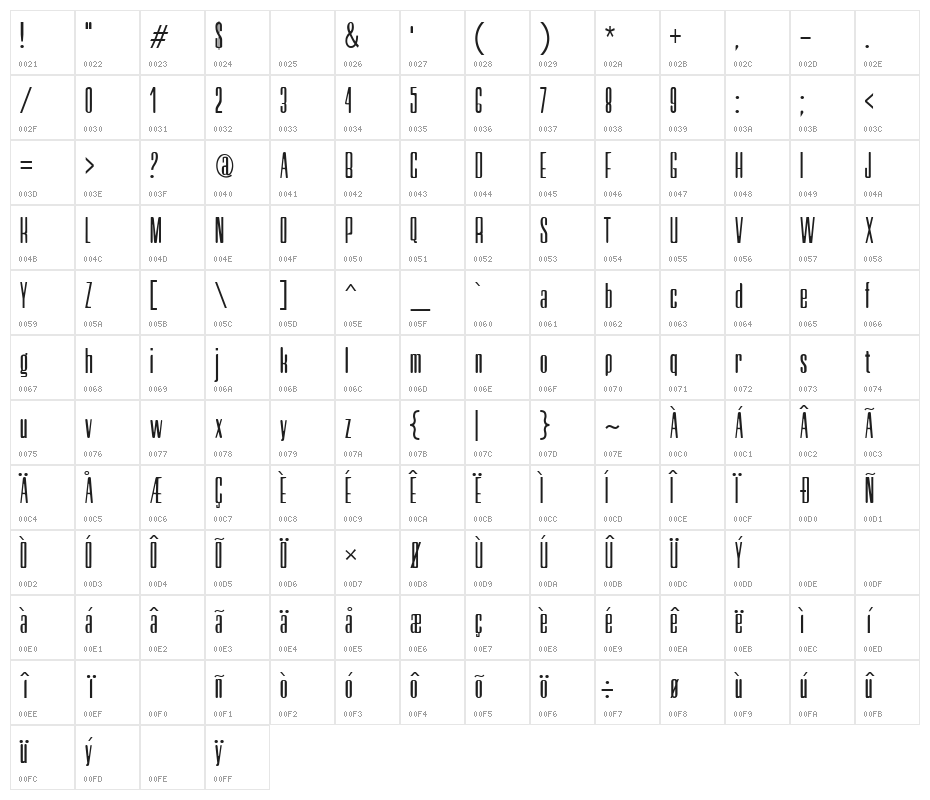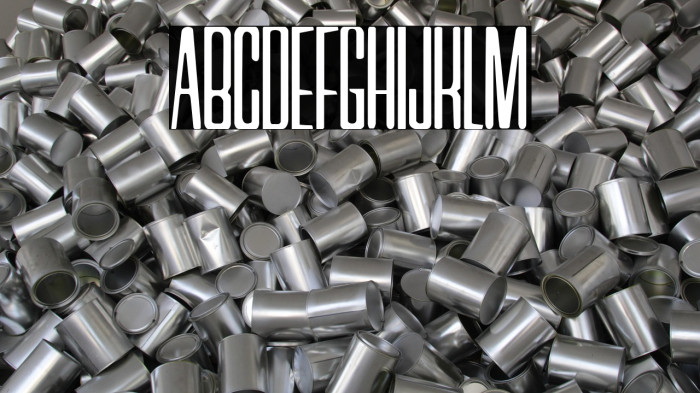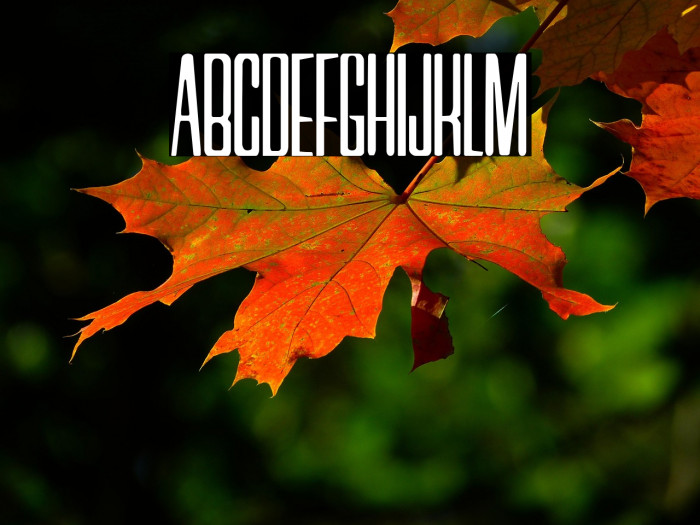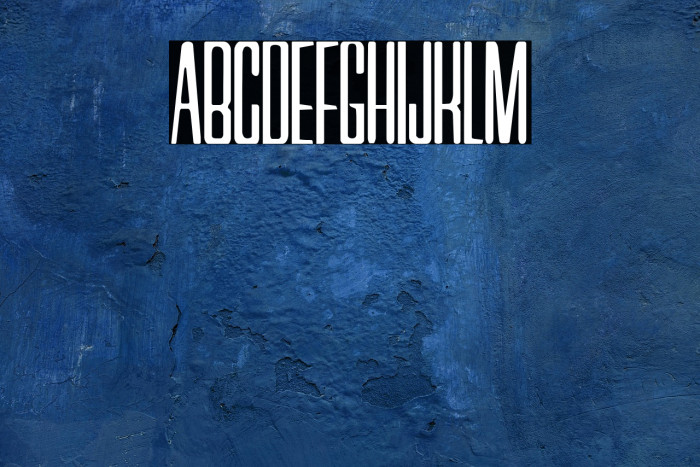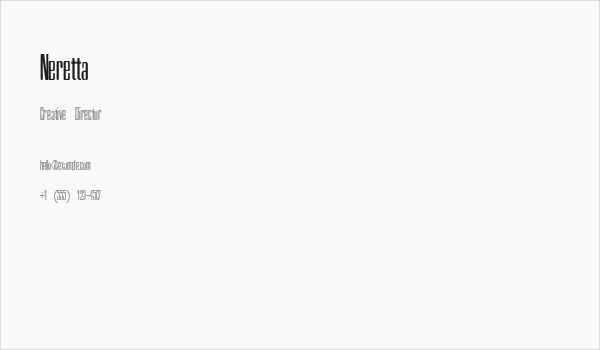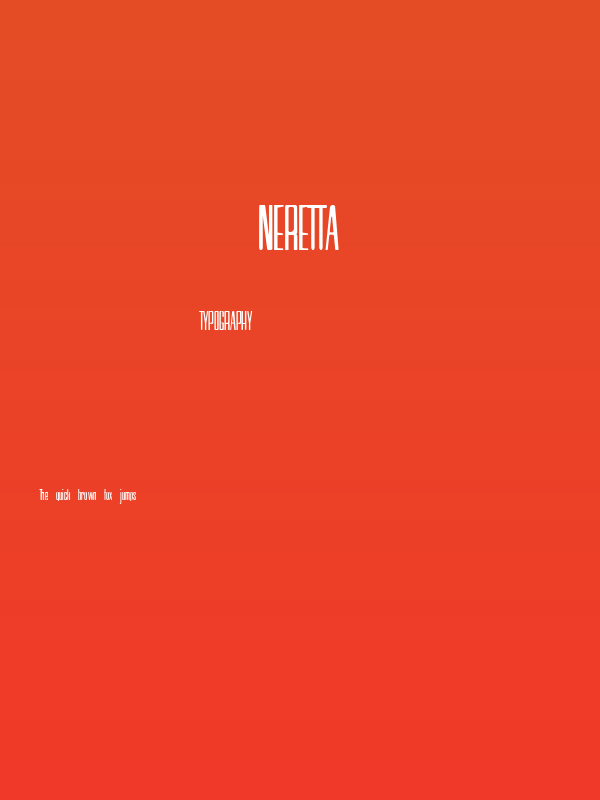
Neretta Font
Neretta Description
This font features a bold and condensed style with a modern flair. The uppercase letters are tall and narrow, creating a striking and impactful appearance. The lowercase letters maintain the condensed form, offering a cohesive look across different text sizes. The numerals are consistent with the overall style, ensuring readability while maintaining the font's unique character. Special characters are designed to complement the alphabet, providing versatility for various design needs. The font's high contrast in stroke thickness adds to its boldness, making it suitable for attention-grabbing headlines and logos.
Proposed ProjectsIdeal for branding, posters, headlines, and any project requiring a strong visual impact.